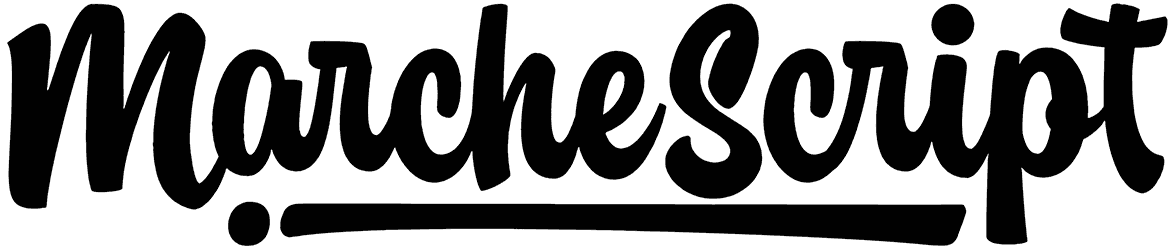
Marche Script Font
Marche Script is not just a handwritten font like the rest of them. With all the additional roundness in its bold style, the first thing you’re going to notice about it is the playful tone. Even though you have no options for numbers here, this cursive font knows just what you need for making inspired logos for food products, fruit juice bottle labels, tropical summer party posters, and anything that can use the fun attitude of this lovely modern font.
Example: World_scoreUse multiple underscores to make swashes of different lengths.